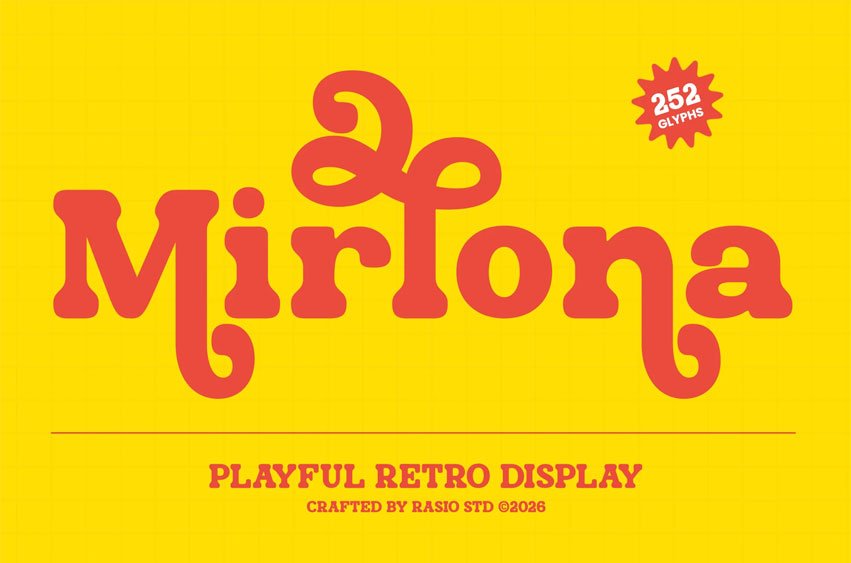
Mirlona Font is a playful retro display font designed to bring joyful personality and nostalgic charm into modern design projects. Inspired by vintage typography from the 60s–70s era, this typeface features soft rounded shapes, chunky letterforms, and expressive curves that instantly create a fun and friendly visual tone. The bold structure and whimsical character details make Mirtona perfect for eye-catching headlines, colorful branding, and creative design layouts.
Relevance and Use Cases is perfect for creative projects that require a fun and nostalgic retro atmosphere. It works perfectly for poster design, retro branding, product packaging, children’s designs, colorful social media graphics, playful marketing materials, and eye-catching editorial headlines.